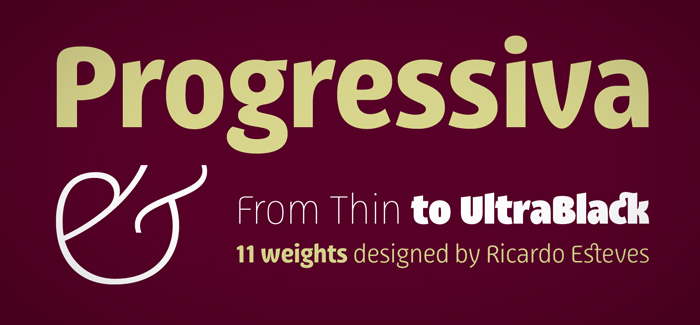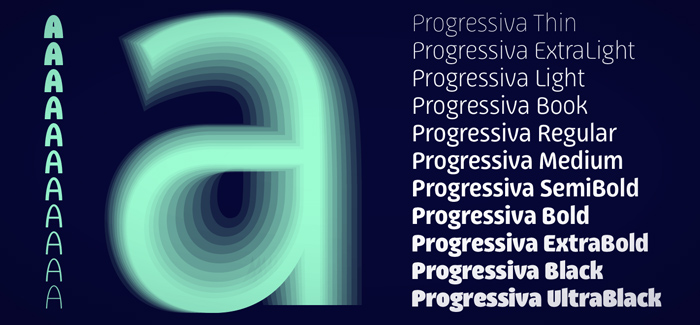
Progressiva font
Progressiva font family is a sans serif typeface designed by Ricardo Esteves Gomes for Brazilian based Outras Fontes Type Foundry. It’s designed in 11 roman style from Thin to Ultra Black and like another super family by Outras Fontas – the Directa Serif – is giving you a lot of options to play with the weights and thus to improve significantly the overall look of your designs. Progressiva font family has own unique glyph style developed with great attention to detail. It supports the most necessary open type features like alternates, ligatures and multilingual characters. Progressiva font family works excellent for your catchy headlines, long paragraphs texts, stationary, packaging and maybe because of its original look – for logos. Excellent readability in all weights even in very small sizes.
Progressiva font received a “Certificate of Excellence” at the 2014 Tipos Latinos Biennale.
Designers: Ricardo Esteves Gomes
Publisher: Outras Fontes